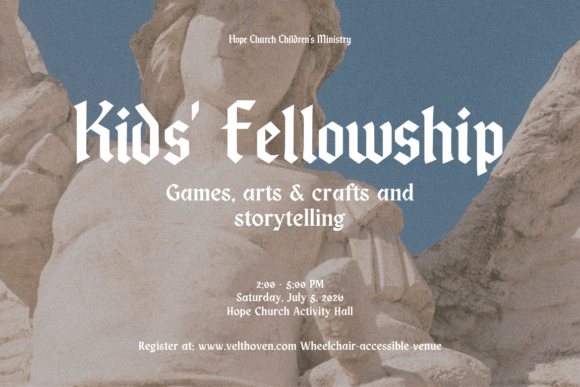
Velthoven Black Font
Unveiling Velthoven Black—a bold, modern Blackletter Typeface boasting a unique fusion of bygone blackletter antiquity, coupled with sleek gothic minimalism of today’s design landscape. This font amalgamates the commanding historic echoes of Fraktur calligraphy with sharply defined geometric outlines, enhanced with crisp, up-to-date details.
It’s an avant-garde creation for designers who seek to embed elements of daring juxtaposition, stark contrast, and an audacious attitude into their creative repertoire. Expect Velthoven Black to fit seamlessly into your design renditions – curated for music branding collaterals and posters, high fashion editorials, and product wrapping, adding flair to tattoo and streetwear logos, adorning book covers, labels, and lending an unmatched essence to Goth-inspired graphics.
Velthoven Black packs a powerful visual punch with its high stroke contrast and angular terminals, while soft, rounded spurs allow for an underlying softness. Despite boasting such a strong personality, the typeface remains highly legible and adaptable across various layout styles.